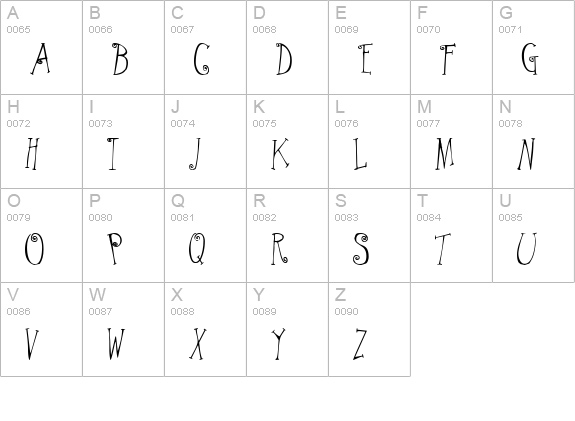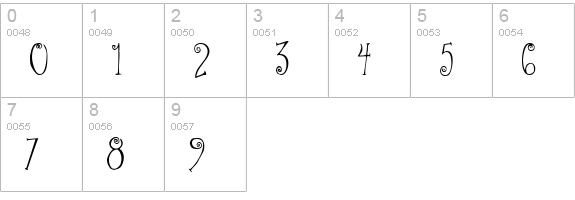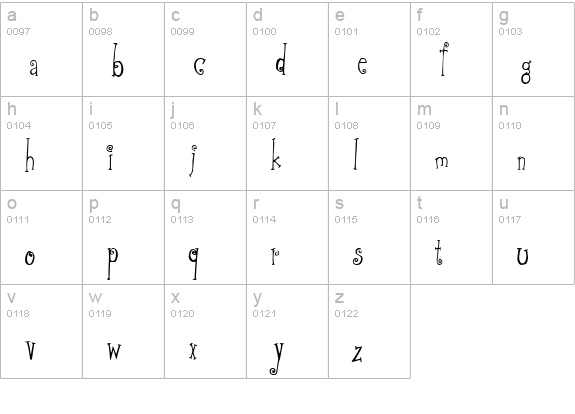
Greywolf Quirk Font Details
Greywolf Quirk font is a modern and stylish typeface that exudes charm and creativity. Featuring quirky and unique letterforms with a touch of elegance, this font is perfect for adding a playful yet sophisticated look to your designs. Whether you're working on branding, social media graphics, or any other creative project, Greywolf Quirk font will make your text stand out. The best part is that Greywolf Quirk font is completely free to download at FontsMarket.com. You can easily access this versatile font and use it in both personal and commercial projects without any restrictions. Don't miss out on the opportunity to enhance your designs with this eye-catching typeface. Download Greywolf Quirk font today and let your creativity shine!